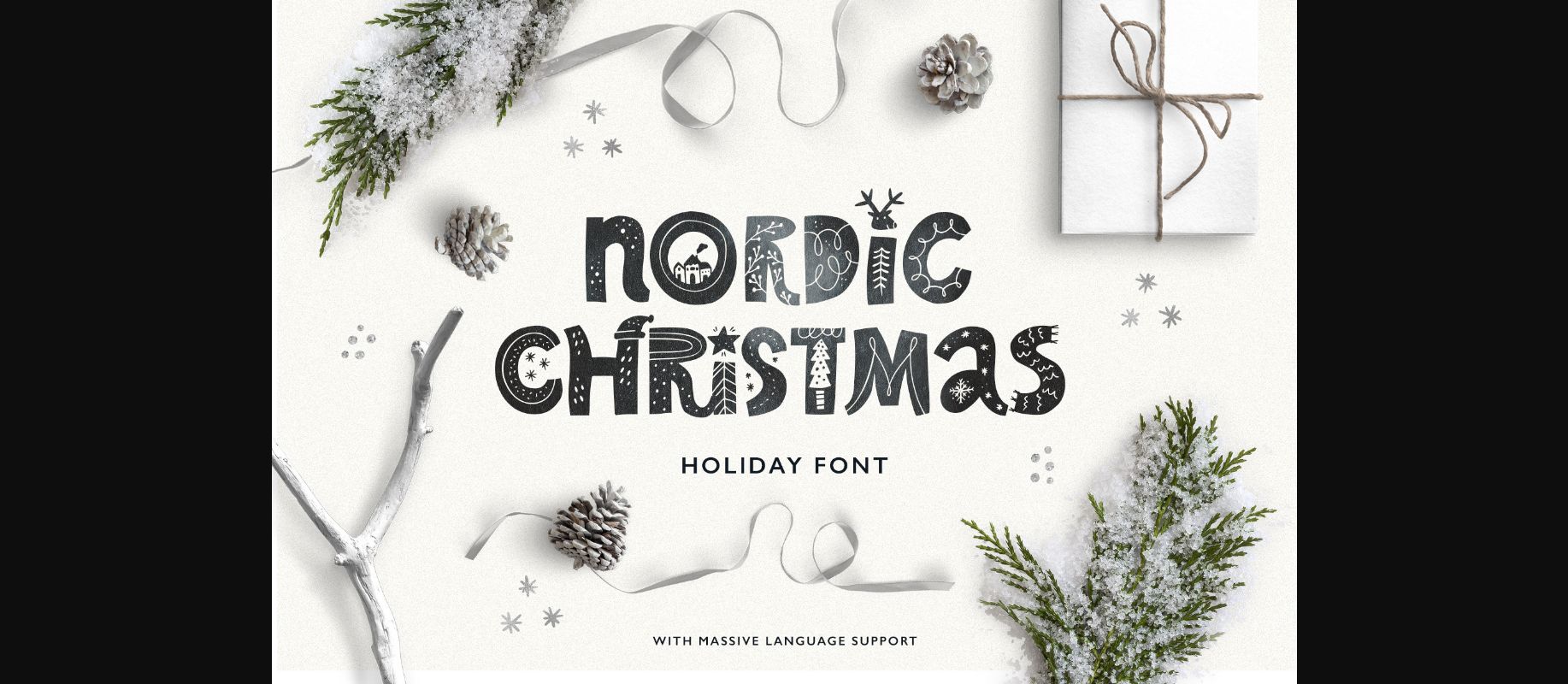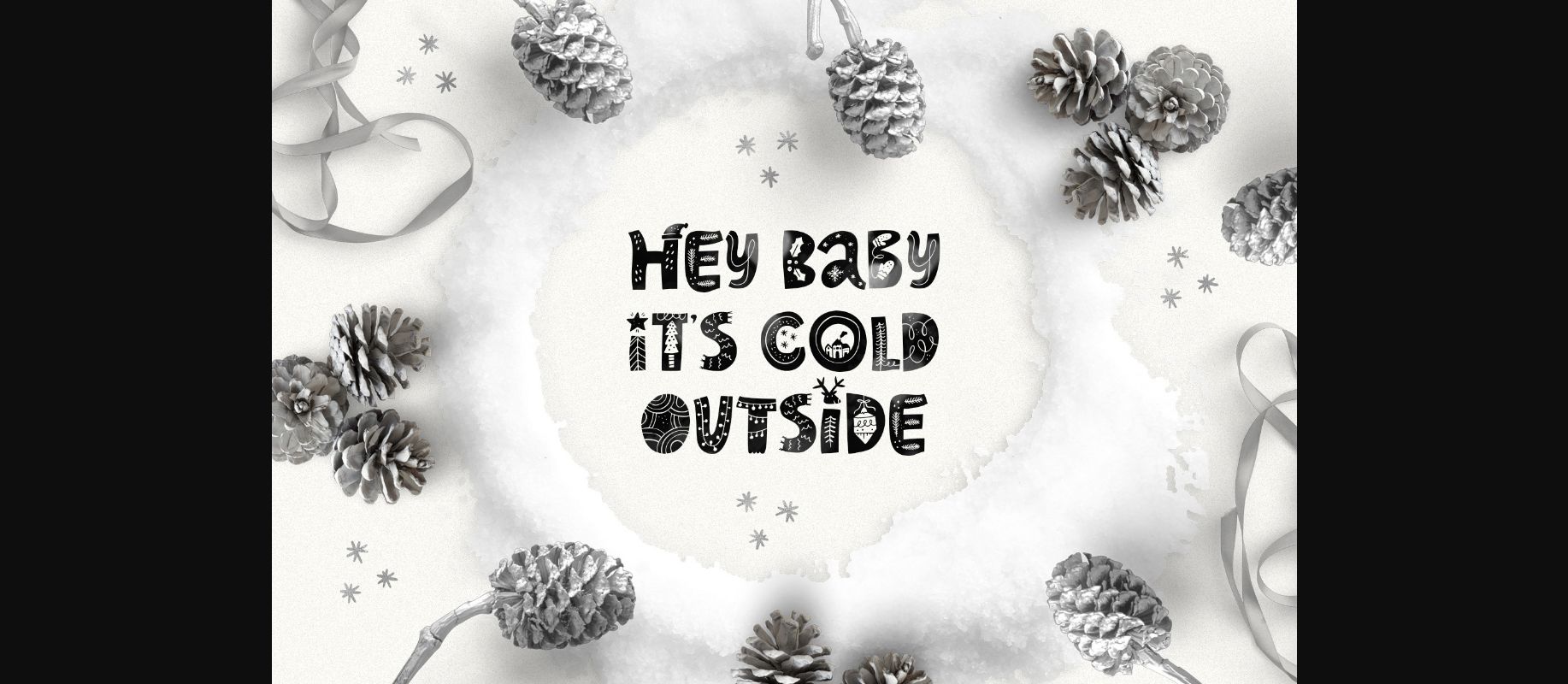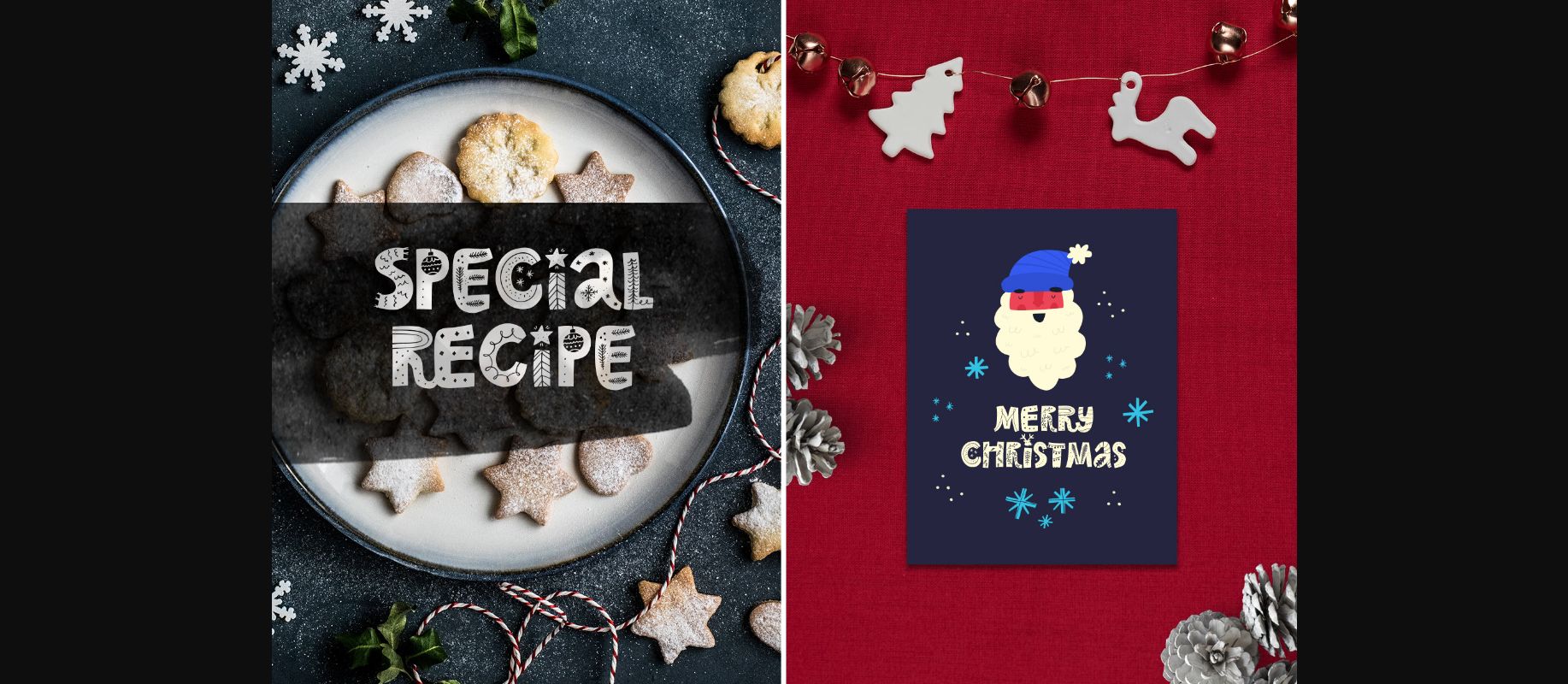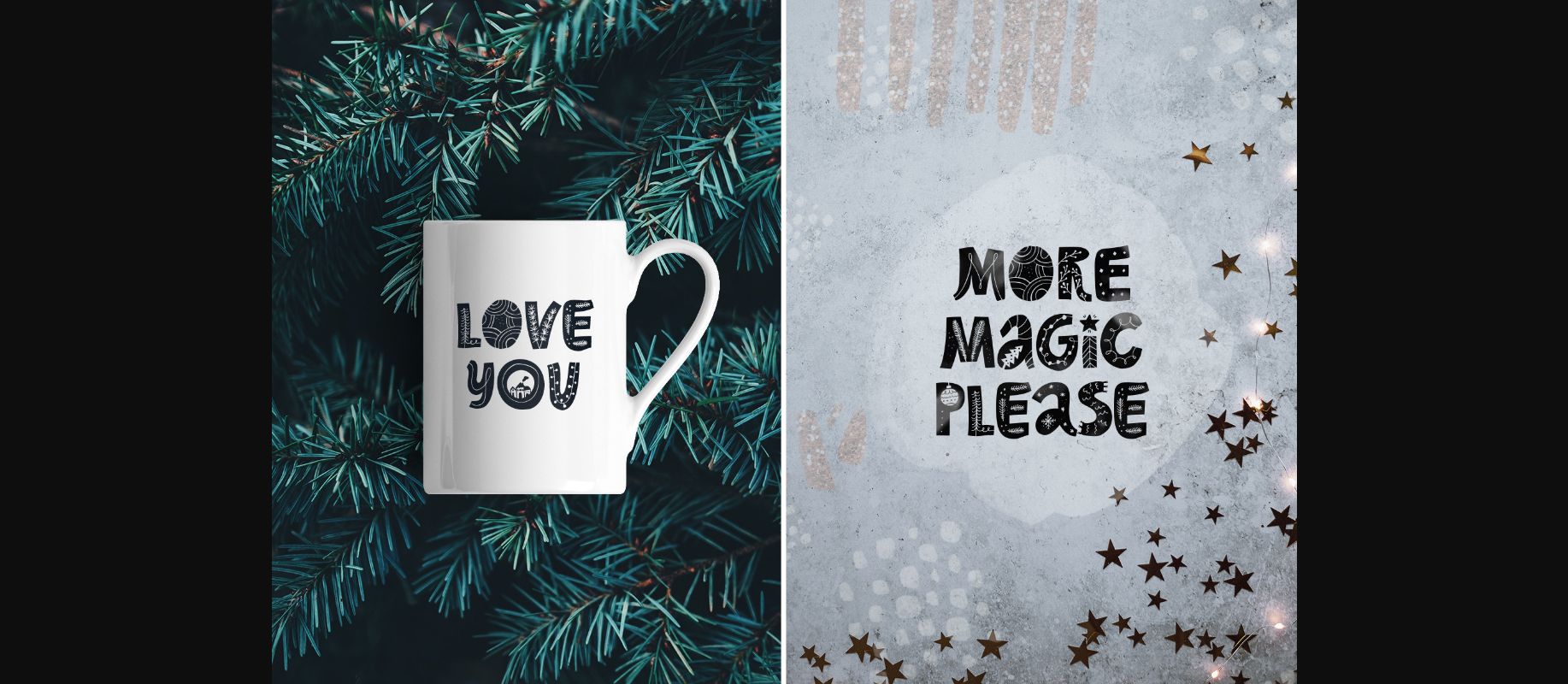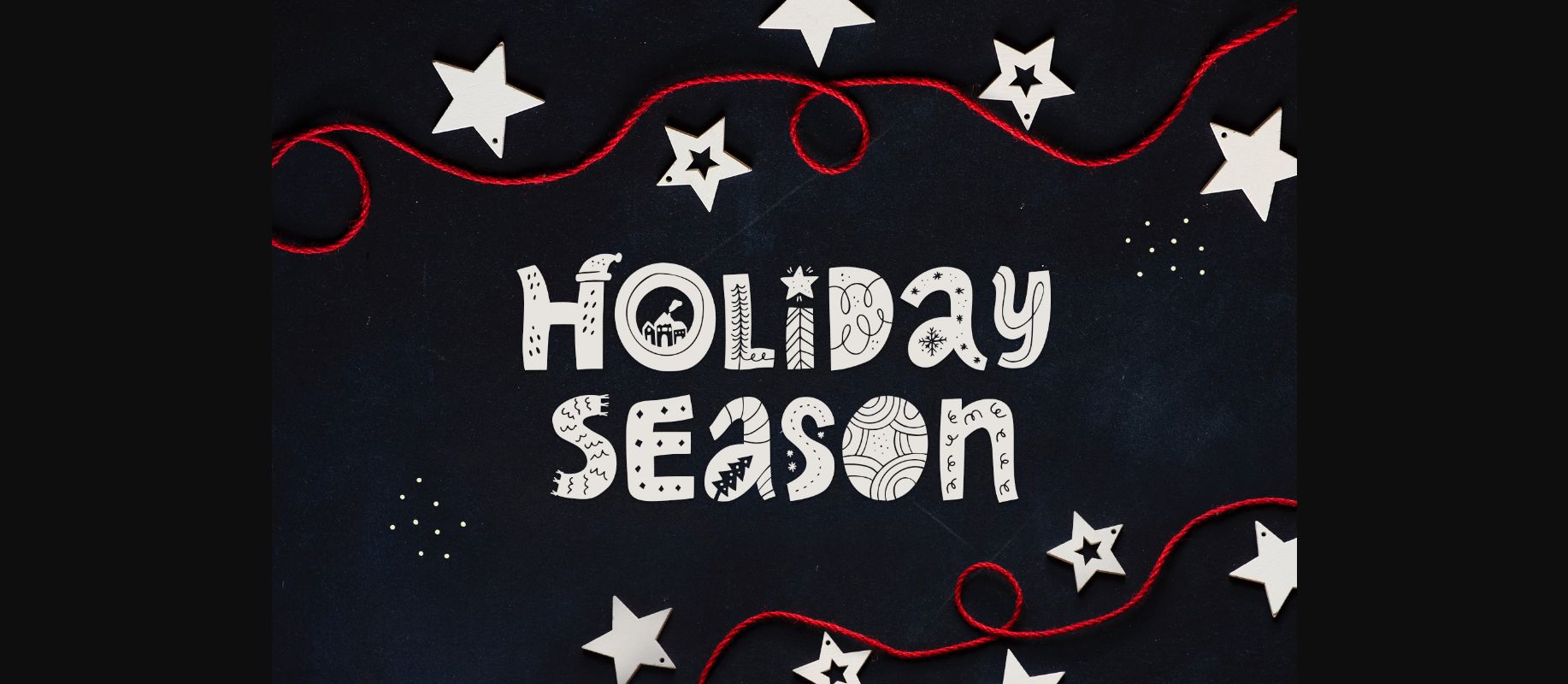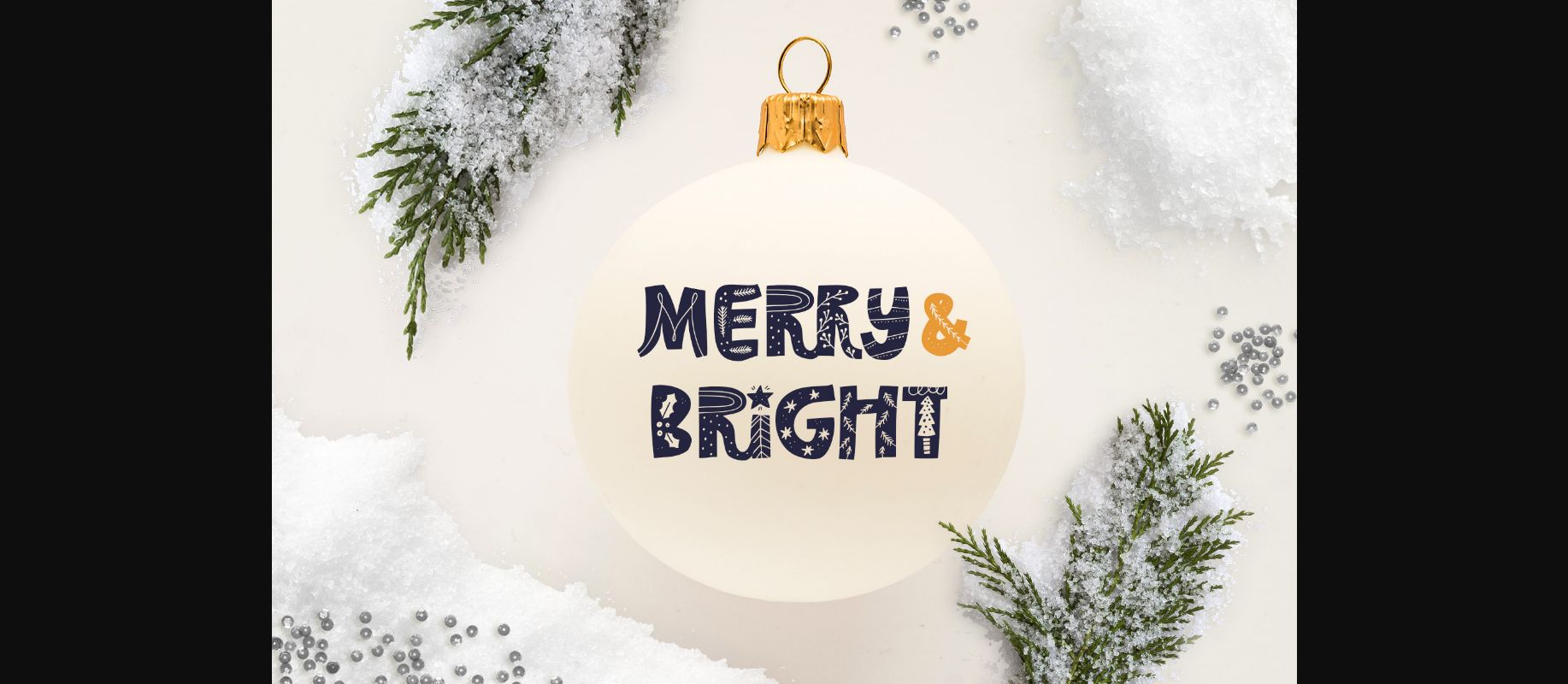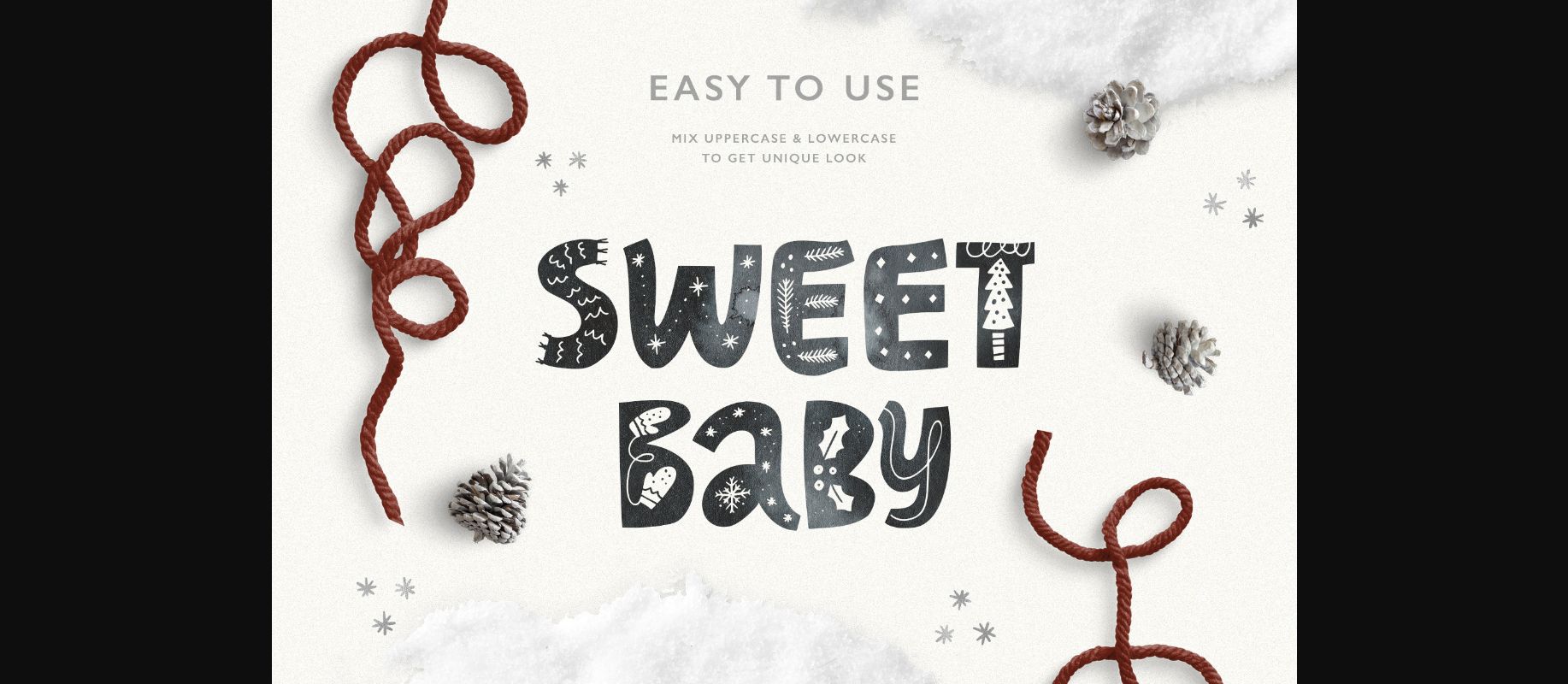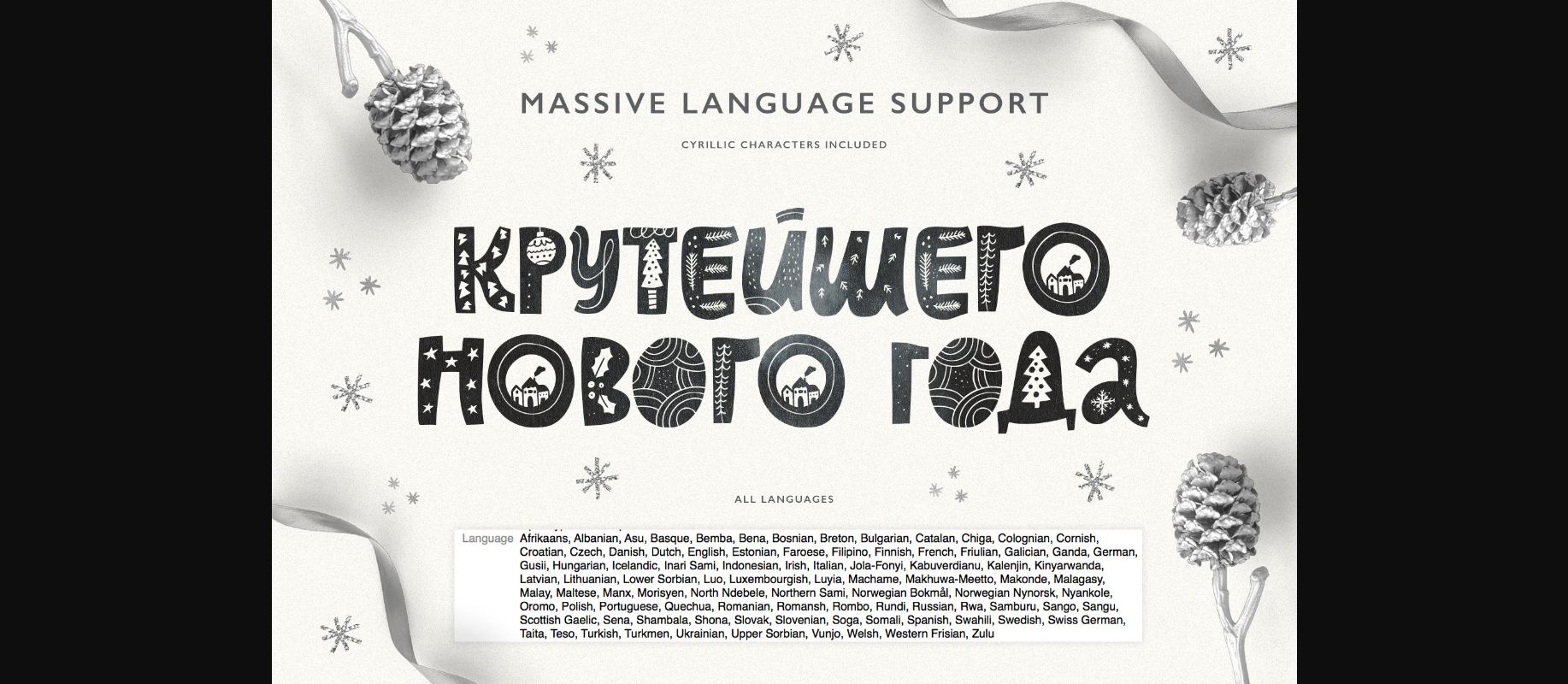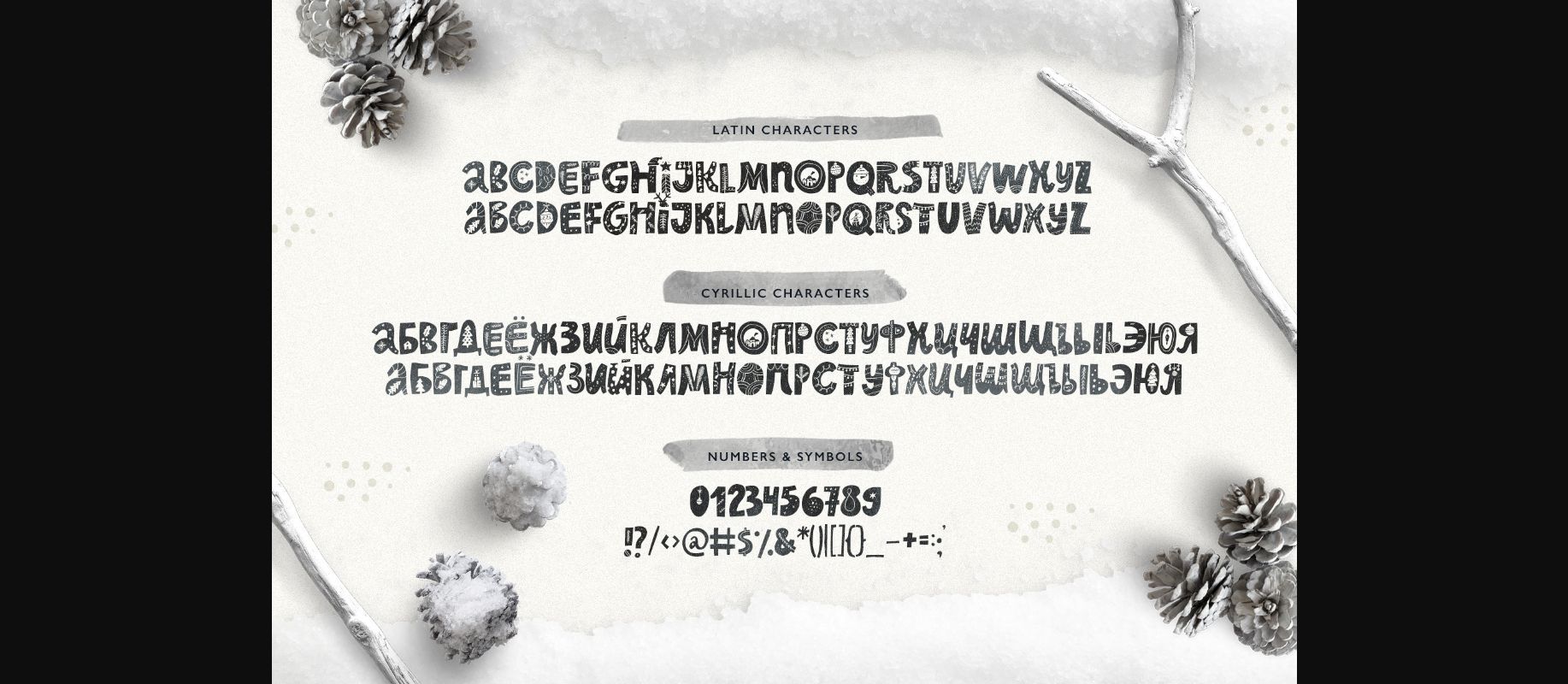
Nordic Christmas Font
About Nordic Christmas Font
Nordic Christmas is a stylish decorative font with a bold look and holiday feel. It is inspired by nature, winter, and scandinavian motives, and it will be perfect for posters and greeting cards.